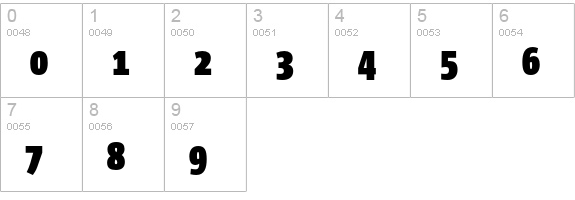
Corpid Cd Black is a maximum-weight, dramatic variant in the Corpid typeface family \xE2\x80\x94 well suited to maximum-impact headlines, posters, and packaging.
Corpid Cd Black font is a sleek and modern typeface that exudes sophistication and elegance. Its bold and striking design makes it perfect for headlines, titles, and branding materials. The sharp lines and geometric shapes give this font a contemporary feel that will make your designs stand out. And the best part? Corpid Cd Black font is available for free download at FontsMarket.com. Whether you're working on a professional project or looking to add a touch of class to your personal creations, this font has got you covered. Don't miss out on the opportunity to enhance your designs with this stylish and versatile typeface. Download Corpid Cd Black font today and take your designs to the next level!